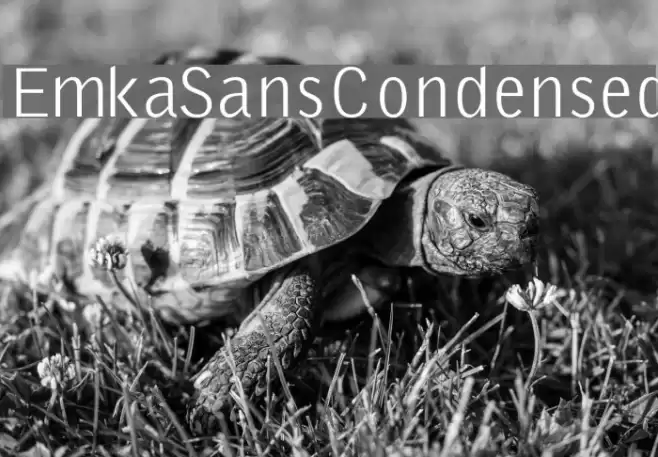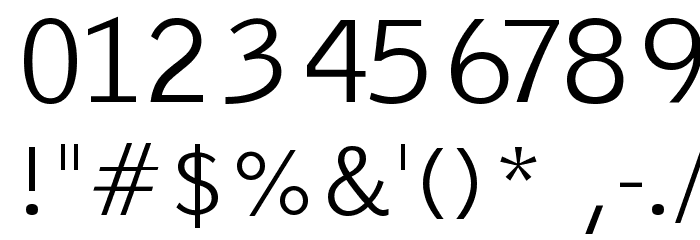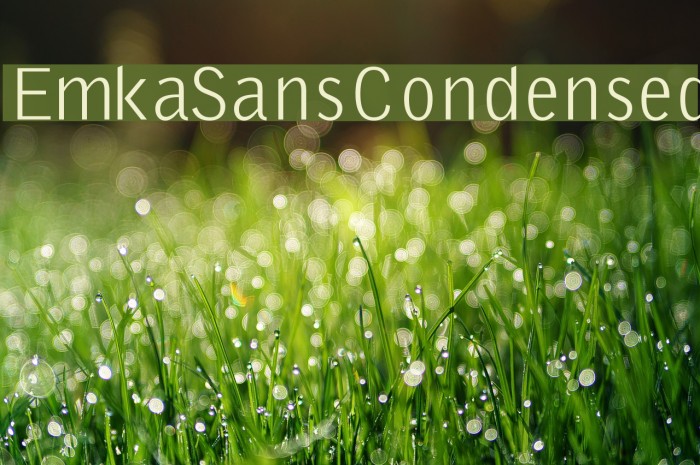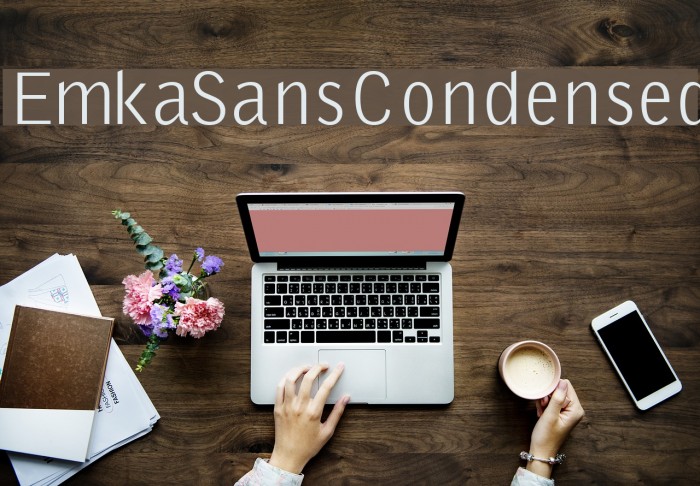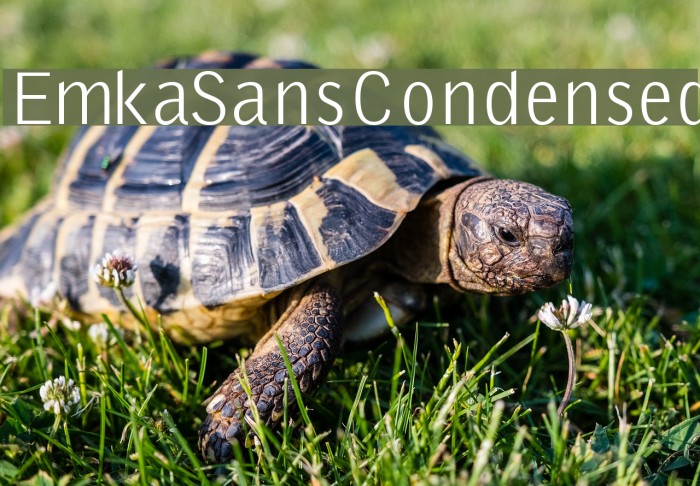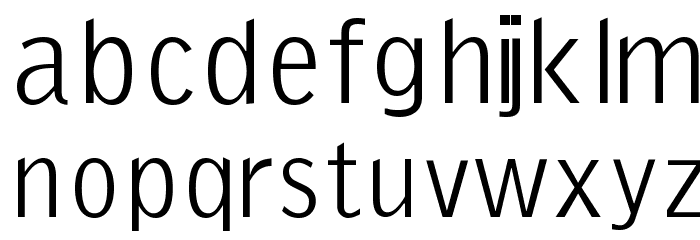
EmkaSansCondensed Font
EmkaSansCondensed Description
This typeface presents a clean and modern aesthetic with a sans-serif style. The characters are uniformly designed with a consistent stroke width, contributing to a sleek and professional appearance. The uppercase and lowercase letters are well-proportioned, offering a harmonious balance. The numerals are clear and legible, making them suitable for various applications. Special characters are included, maintaining the font's cohesive look. The condensed width of the characters allows for efficient use of space, making it ideal for projects where space is a premium.
A modern, sans-serif typeface with a clean, condensed design from Sans Serif fonts.
- Proposed Projects: Ideal for branding, editorial design, web design, and advertising where a modern and professional look is desired.